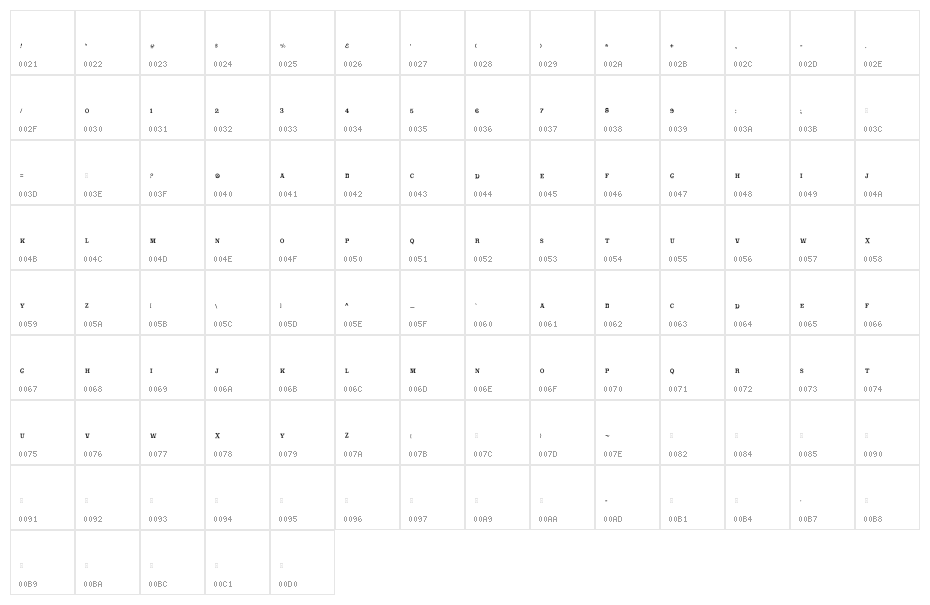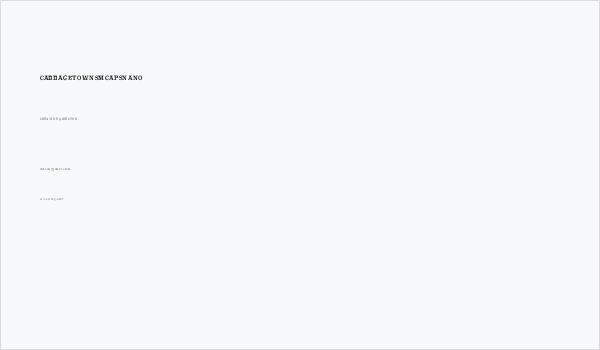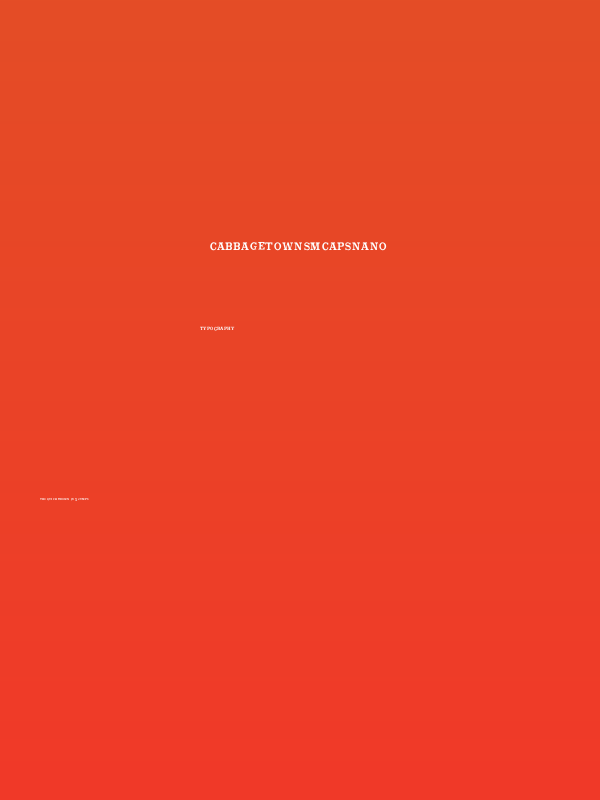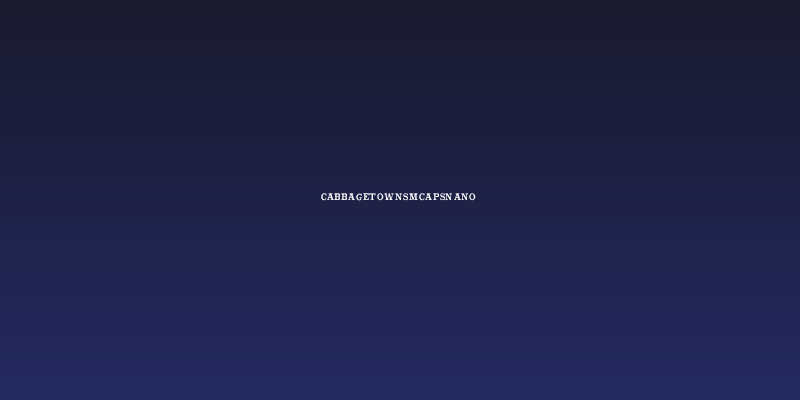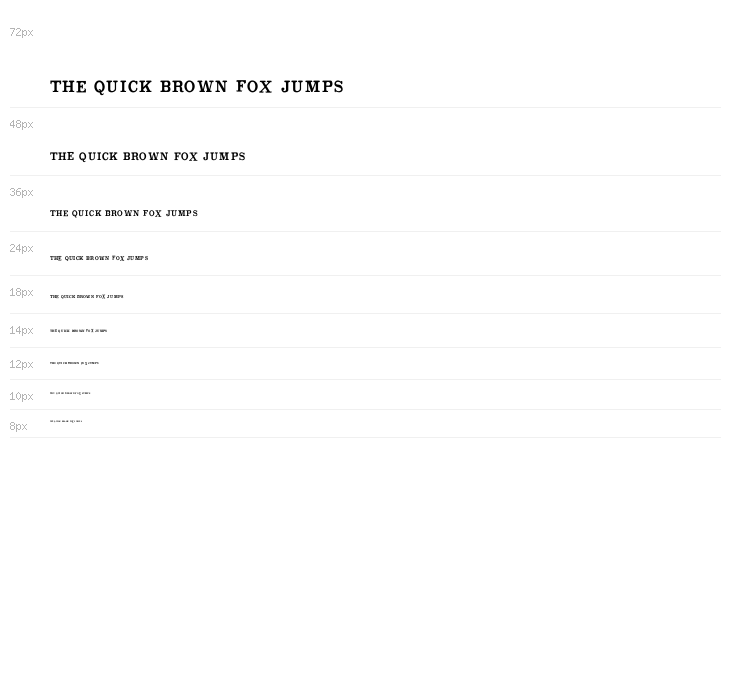
CabbagetownSmCapsNano Font
CabbagetownSmCapsNano Description
This font features a bold and classic serif style, characterized by its strong, thick strokes and pronounced serifs. The uppercase letters are uniform in height, providing a sense of stability and tradition. The numerals are equally bold, maintaining the font's robust appearance. Special characters are crafted with the same attention to detail, ensuring consistency across all glyphs. This font exudes a vintage charm, making it suitable for projects that require a touch of elegance and authority.
| Use Case | Headlines, Logos, Editorial |
| Proposed Projects | Ideal for book covers, formal invitations, branding for luxury products, and editorial headlines. |